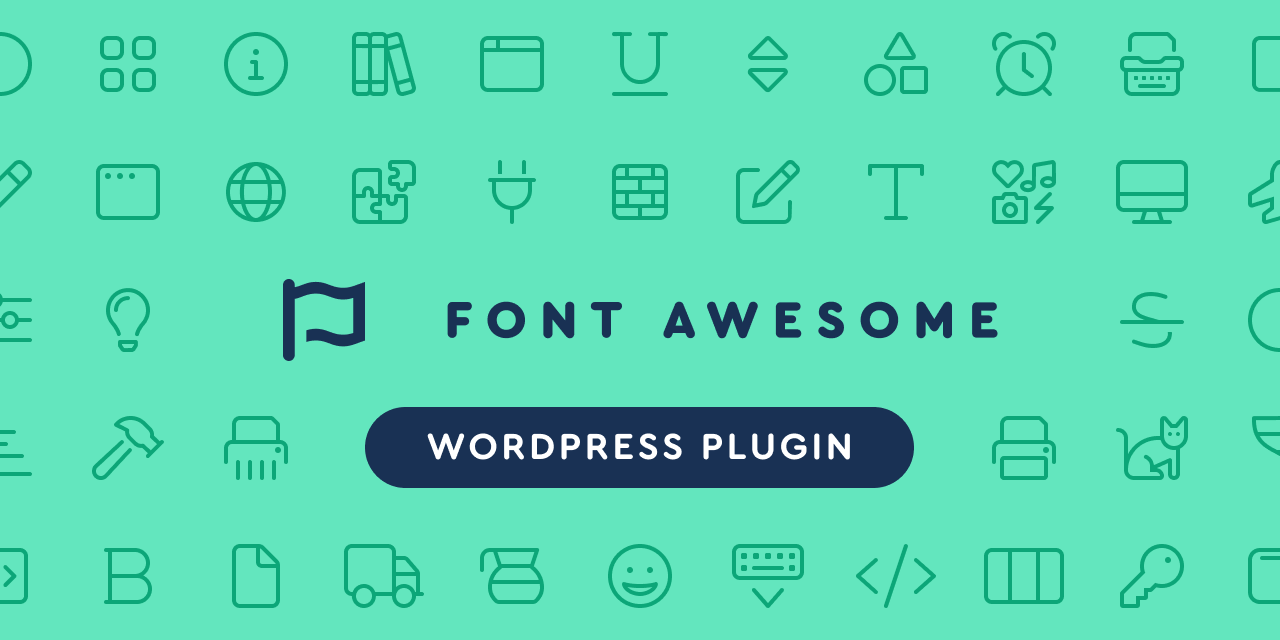
Font awesome light alternative. 50 free futuristic fonts to help make your designs look uniquely alternative selecting a typeface for a piece that seemingly belongs in the future is exciting. Adison lee msed quia non numquam eius 2 minutes ago; We cannot edit font served from cdn.
This project and all font awesome svg icons will work just fine in these components but we need to take an additional step to add the css correctly. About the font autograph script ef light alternate. Line awesome from icons8.com is an awesome alternative to font awesome 5.
Bryant light alternate is free for personal use only. To take advantage of encapsulation that the shadow dom provides and to keep other areas of the dom clean we need to add the font awesome css to the root of the shadow dom. Use the search box below, to find the right icon you are looking for.
About the font bryant light alternate. Bring other sets and even icons you've designed yourself to the party. Many designers love to use this font but unfortunately, we can’t convert this into a webkit font so the best alternative google font according to me is open sans, it’s a sans serif type font and has very similar font.
Font awesome is designed to be used with inline elements, you can place font awesome icons just about anywhere using a style prefix and the icon’s name. Similar free fonts for reformer semi light font. John cook phd msed quia non numquam eius 2 weeks ago;
Making the web more beautiful, fast, and open through great typography It is a very versatile font that offers many weights and has optimized exclusive distribution. Upload your own icons to a font awesome kit and easily use them right alongside (or as a replacement for) official font awesome icons!
The font family is bryant.the subfamily is regular. Another alternative for helvetica is the gothic a1 font that has nine different styles. The font family is autographscriptef.the subfamily is lightalt.
Please, talk with the author for commercial use or for any support. You place font awesome icons by using the prefix fa and the icon's name. Option 1) svg with javascript
Oliver kopyuv msed quia non numquam eius 3 days ago; The world’s most popular and easiest to use icon set just got an upgrade. No downloading or installation is required!
So we should use font awesome locally. Font awesome is an icon collection that is, well, awesome — nearly 4,000 icons that are incredibly easy to use, about 1,300 of which are open source and free to use in any application. To use the font awesome icons, add the following line inside the section of your html page:
Anothony bezyeth msed quia non numquam eius one month ago Sarah mcbrook msed quia non numquam eius 3 weeks ago; Unzip font awesome 5 pro (from step 1) into /dist/lib/fontawesome5 (from step 2) zip the whole dist folder;